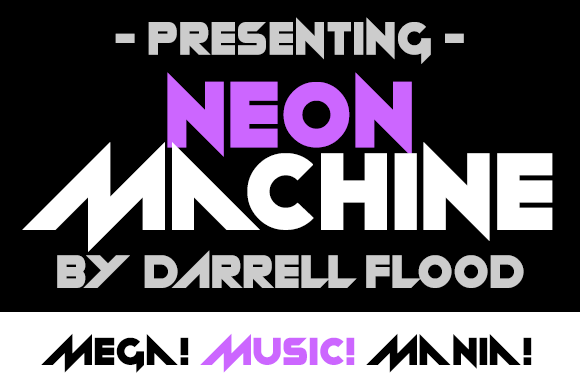
Neon machine Typeface
Neon Machine is a modern, futuristic font in an energetic style. This display font is ideal for science fiction themes and breakbeat flyers!
Designer Name: | Darrell Flood |
Classification: | Square, Techno |